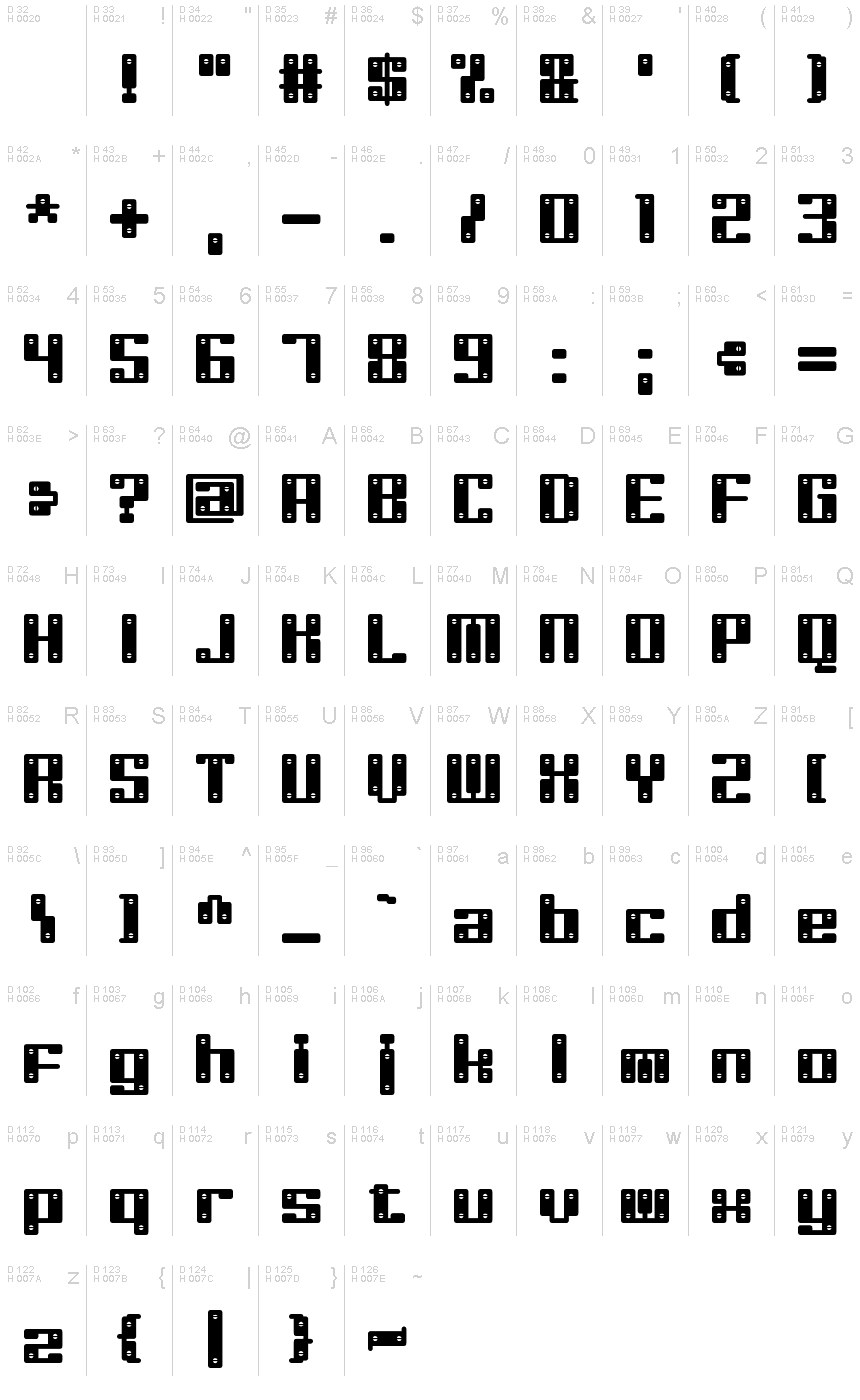
Little Toy Builders Regular
Little Toy Builders is a decorative techno font designed by GameDevDan. Bold and wide, it is perfect for bright and fun projects such as game design, comics, advertising, and logos.